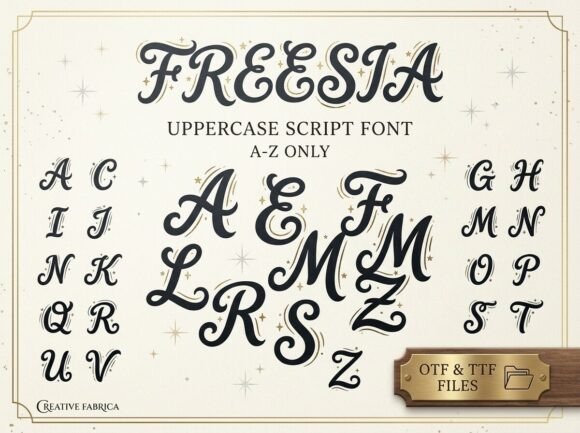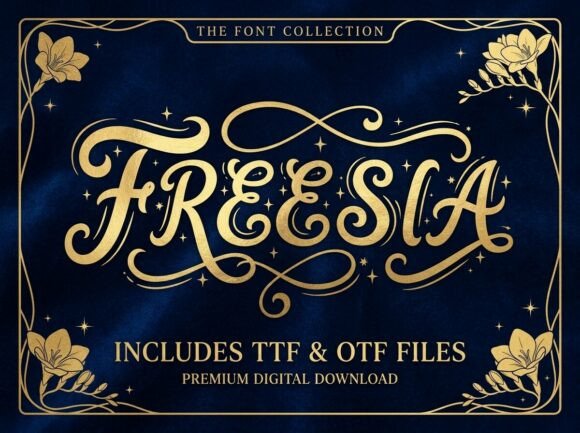
Stardust in Your Design
As designers, we’ve all been there – staring at a blank canvas, searching for that elusive spark to bring our ideas to life. The night sky has long been a source of inspiration for creatives, with its twinkling stars and celestial beauty. And now, we have the perfect tool to capture that magic: the Freesia Font.
This enchanting handwritten font is a masterclass in whimsy and wonder, featuring bold, calligraphic letterforms adorned with hand-drawn stars and delicate motion lines. With its unique “uppercase-only” design, Freesia Font is the perfect choice for designers looking to add a touch of magic to their work.
Whether you’re working on a boutique brand, an independent book cover, or a mystical event invitation, the Freesia Font is sure to illuminate your designs and leave a lasting impression on your audience.
Freesia Font Key Features
- Unique Characteristics: Elegant script font with flowing connections and subtle flourishes, perfect for wedding invitations, greeting cards, and other special occasions
- Font Style: Script, Casual, Elegant, Romantic
Freesia Font Review
I recently had the chance to work with the Freesia Font, and I must say it’s a beautiful addition to any design project. ✨ One of the things that stood out to me was the font’s elegant and refined aesthetic, making it perfect for luxury brands, fashion, and even fine dining. ✨ The curves and lines are expertly crafted to create a sense of sophistication and high-end quality.
Another aspect I appreciated was the font’s versatility. ✨ It comes in a range of weights, from light to bold, allowing designers to experiment with different styles and moods. The font also supports a wide range of languages, making it a great option for global brands.
While the Freesia Font is a great addition to any design project, there are a few limitations to consider: ⚠️
- Some users may find the font too ornate, making it difficult to read in certain contexts.
- The font’s high-end aesthetic may not be suitable for every brand or project.
- The font’s file size can be quite large, which may cause issues for designers working with limited storage space.
Overall, I’m impressed with the Freesia Font. While it may not be suitable for every design project, it’s a great option for luxury brands and high-end clients. With its elegant aesthetic and versatility, it’s definitely worth considering for your next design project.
Tips for Getting the Most Out of Freesia Font
Here are some tips to help you get the most out of Freesia Font:
- Use Freesia Font for titles and headings to add a touch of elegance to your design.
- Combine Freesia Font with other fonts to create a unique and visually appealing typography.
- Experiment with different font sizes and colors to create contrast and emphasis.
Freesia Font is ideal for:
- Brand logos and identities.
- Editorial and publishing
Alternatives to Freesia Font for Designers
Oswald Font
Oswald is a sans-serif font that is similar to Freesia Font in its modern and sleek design. It is a great choice for designers who want to create a clean and minimalist look. Oswald is more geometric in shape compared to Freesia Font, making it ideal for headings and titles. It is a free font that can be used for both personal and commercial projects.
Lato is a sans-serif font that is a great alternative to Freesia Font for designers who want a more elegant and refined look. It has a similar feel to Freesia Font but with a more rounded shape, making it ideal for body text and paragraphs. Lato is a free font that can be used for both personal and commercial projects.
Montserrat is a sans-serif font that is a great choice for designers who want to create a modern and urban look. It is similar to Freesia Font in its geometric shape but has a more industrial feel, making it ideal for headings and titles. Montserrat is a free font that can be used for both personal and commercial projects.